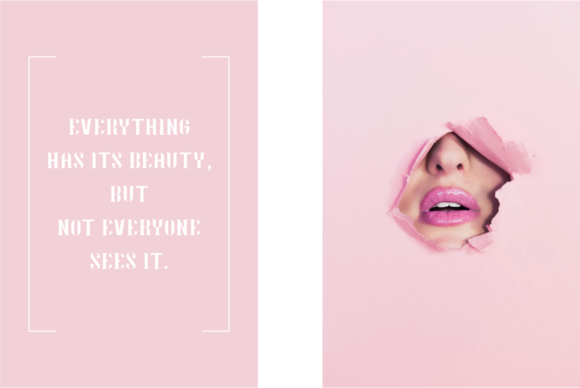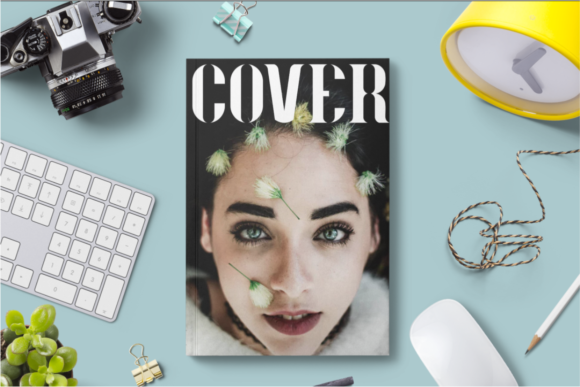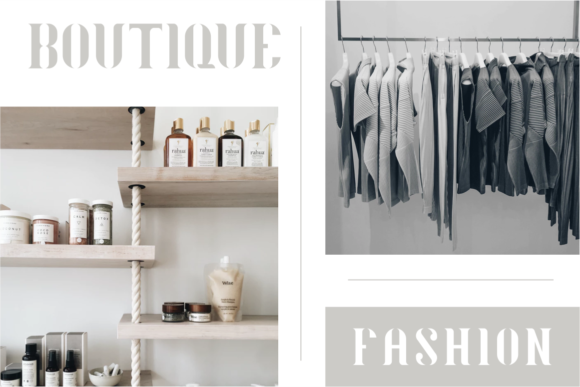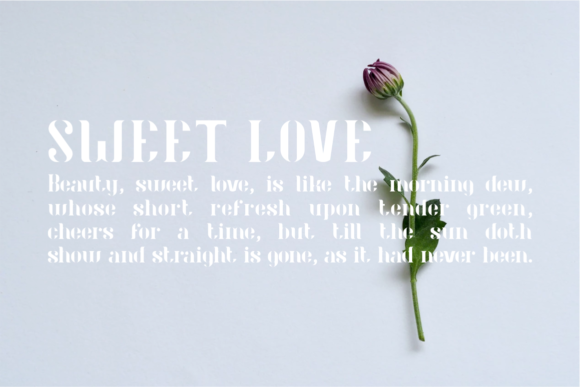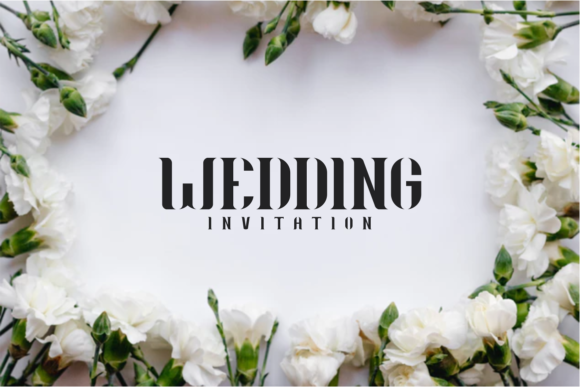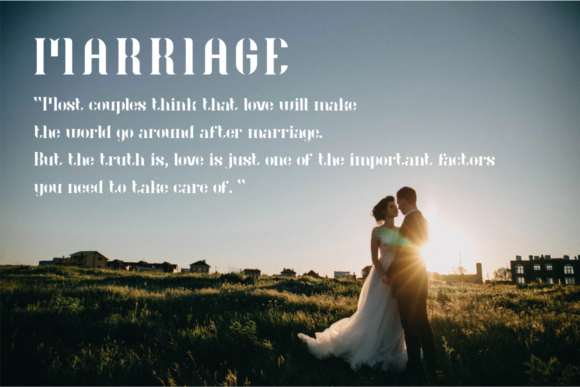
The Audrey Font: A Modern Serif Beauty for Your Designs
I’ll never forget the struggle I faced while working on a recent project. My client wanted a sophisticated, elegant look, but I was having a hard time finding the perfect font to match their vision. That’s when I stumbled upon the Audrey font, and it instantly became my go-to choice. In this article, I’ll share my experience with Audrey, its features, and how to make the most of it in your designs.
A Personal Review of Audrey Font
Audrey is a modern serif font that has quickly become a favorite in my design toolkit. Here’s what I love about it:
• Beautifully crafted serifs: Audrey’s serifs are elegant and refined, making it perfect for projects that require a touch of sophistication.
• Pairs well with script fonts: Audrey complements script, signature, or handwriting style fonts beautifully, making it ideal for designs that require a mix of font styles.
• 💡 Inspired by classic typefaces: Audrey’s design is rooted in classic typefaces, but with a modern twist that makes it feel fresh and contemporary.
While Audrey is an excellent font, it’s not without its quirks:
• 🤔 Limited character set: Audrey’s character set is not as extensive as some other fonts, which can limit its use in certain projects.
• ⚠️ Not suitable for body text: Due to its elegant serifs, Audrey is better suited for headlines and titles rather than body text.
The Backstory of Audrey Font
Audrey font was inspired by classic typefaces from the past, but with a modern twist. Its creator aimed to craft a font that would be both elegant and versatile, suitable for a wide range of design projects. While the exact story behind Audrey’s creation is unclear, it’s evident that the font was designed with love and care, making it a valuable addition to any designer’s toolkit.
Author putracetol
What is Audrey font? Audrey is a modern serif font inspired by classic typefaces, with a elegant and refined feel.
Is Audrey suitable for body text? No, Audrey is better suited for headlines and titles rather than body text.
Does Audrey come with OpenType features? Yes, Audrey comes with a range of OpenType features and glyphs that can enhance your designs.